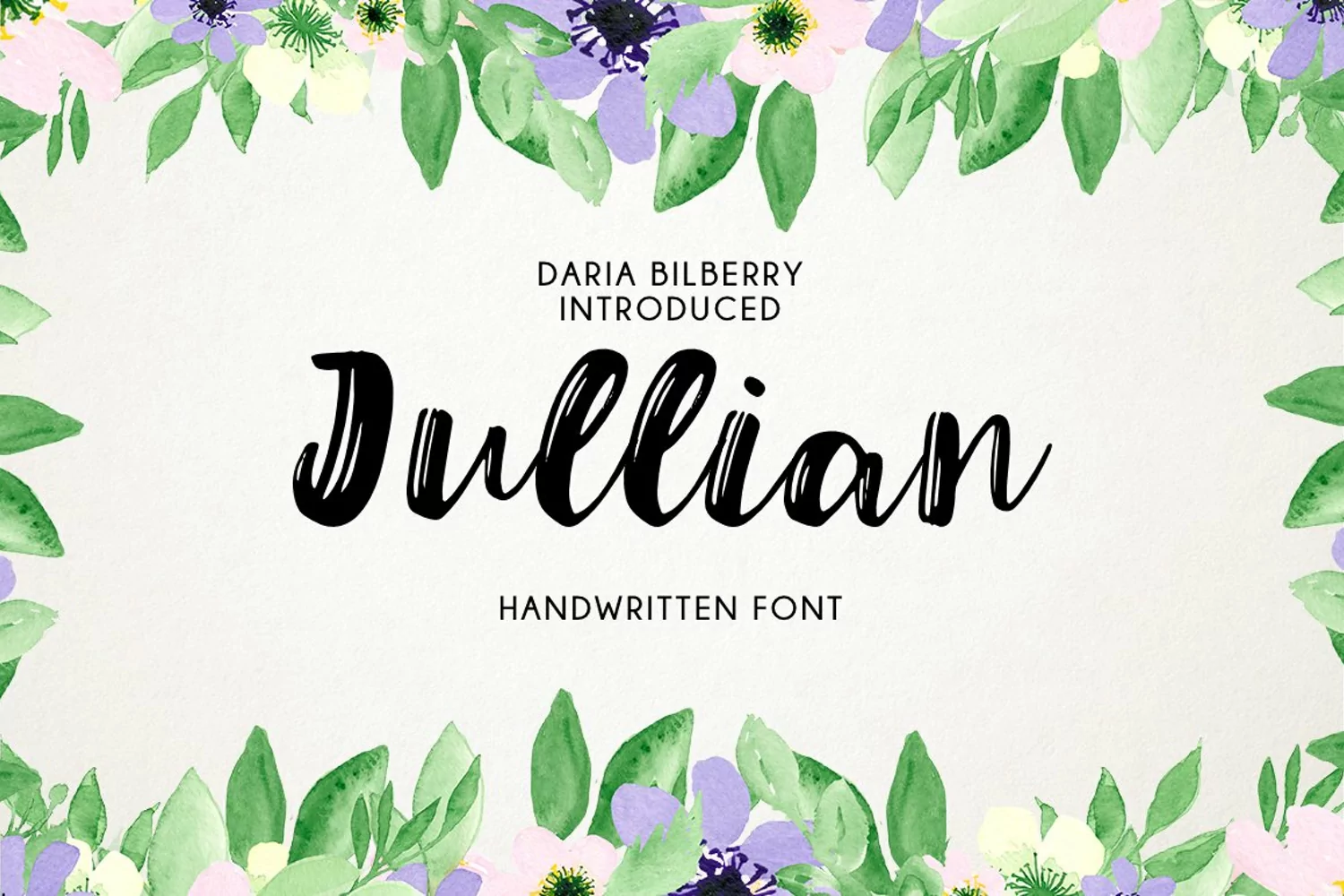
Jullian is a lovely brush style script font. With a textured appearance, Jullian has a modern feel with a touch of the vintage mixed in; the best of both worlds. This versatility makes Jullian script font a great choice for using with your apparel, invitations, branding, logos, packaging and more. Jullian is an excellent font to add to your font library!